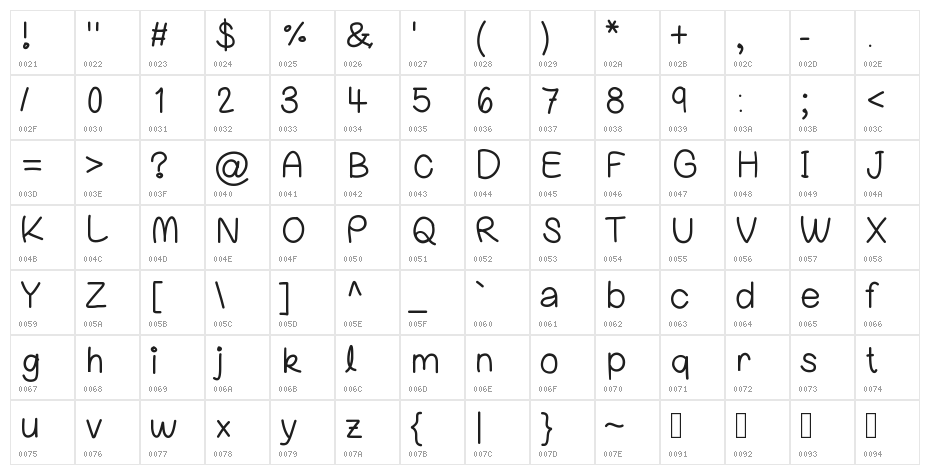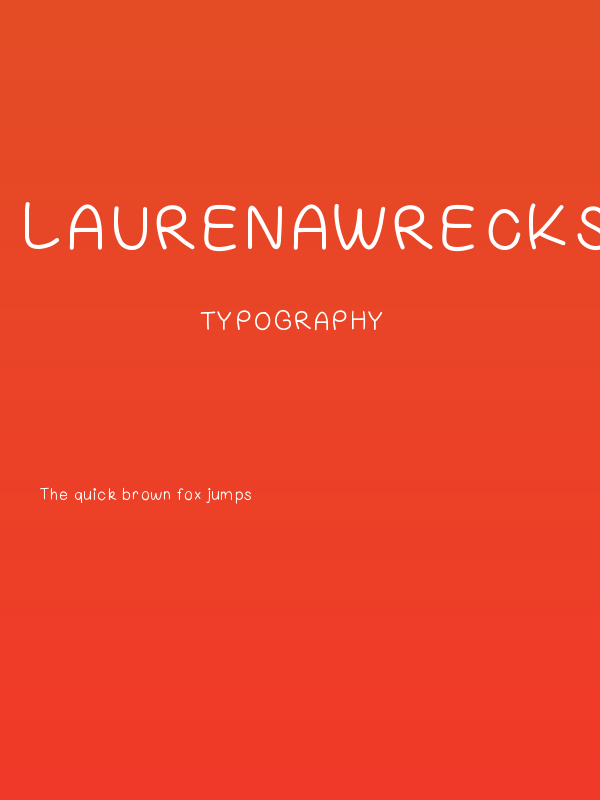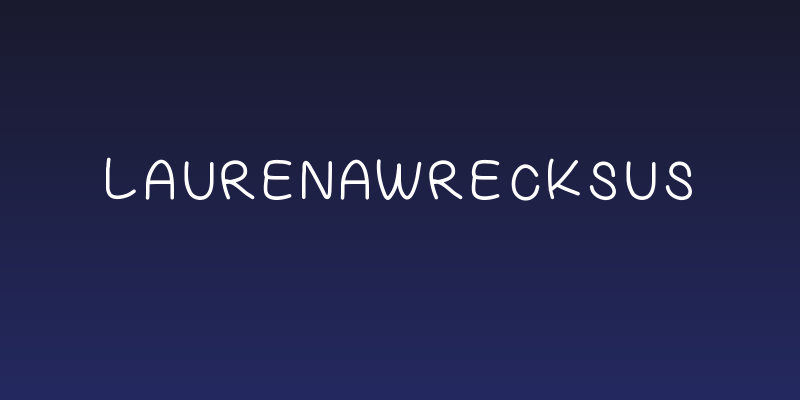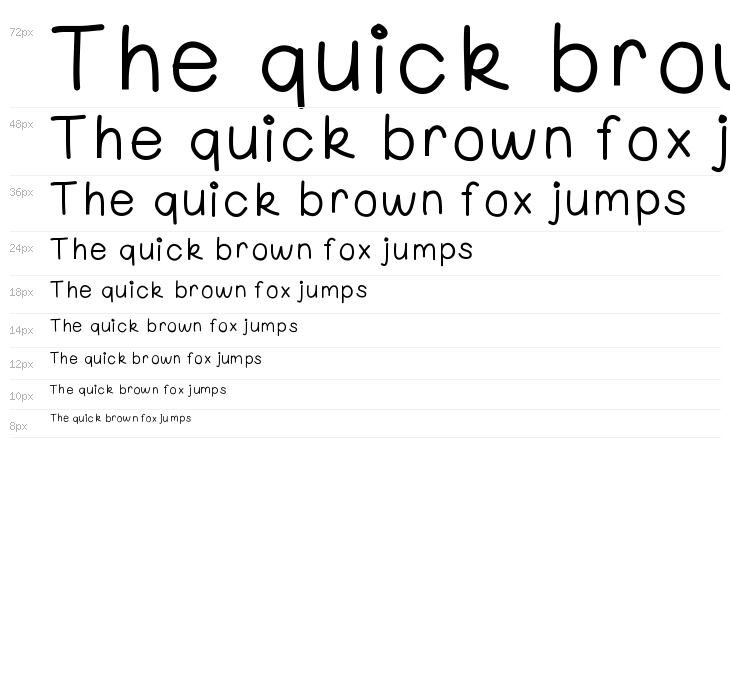
Laurenawrecksus Font
Laurenawrecksus Description
This playful and whimsical font features rounded, smooth characters that convey a sense of friendliness and approachability. The letters are evenly spaced with a consistent stroke width, giving it a clean and modern appearance. The uppercase and lowercase letters maintain a uniform style, with slight variations in curvature that add a touch of uniqueness. The numerals are clear and easy to read, matching the overall aesthetic of the alphabet. Special characters are included, maintaining the same playful style, making this font versatile for various uses.